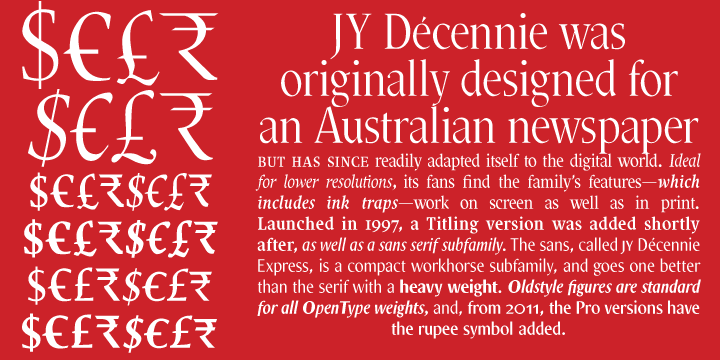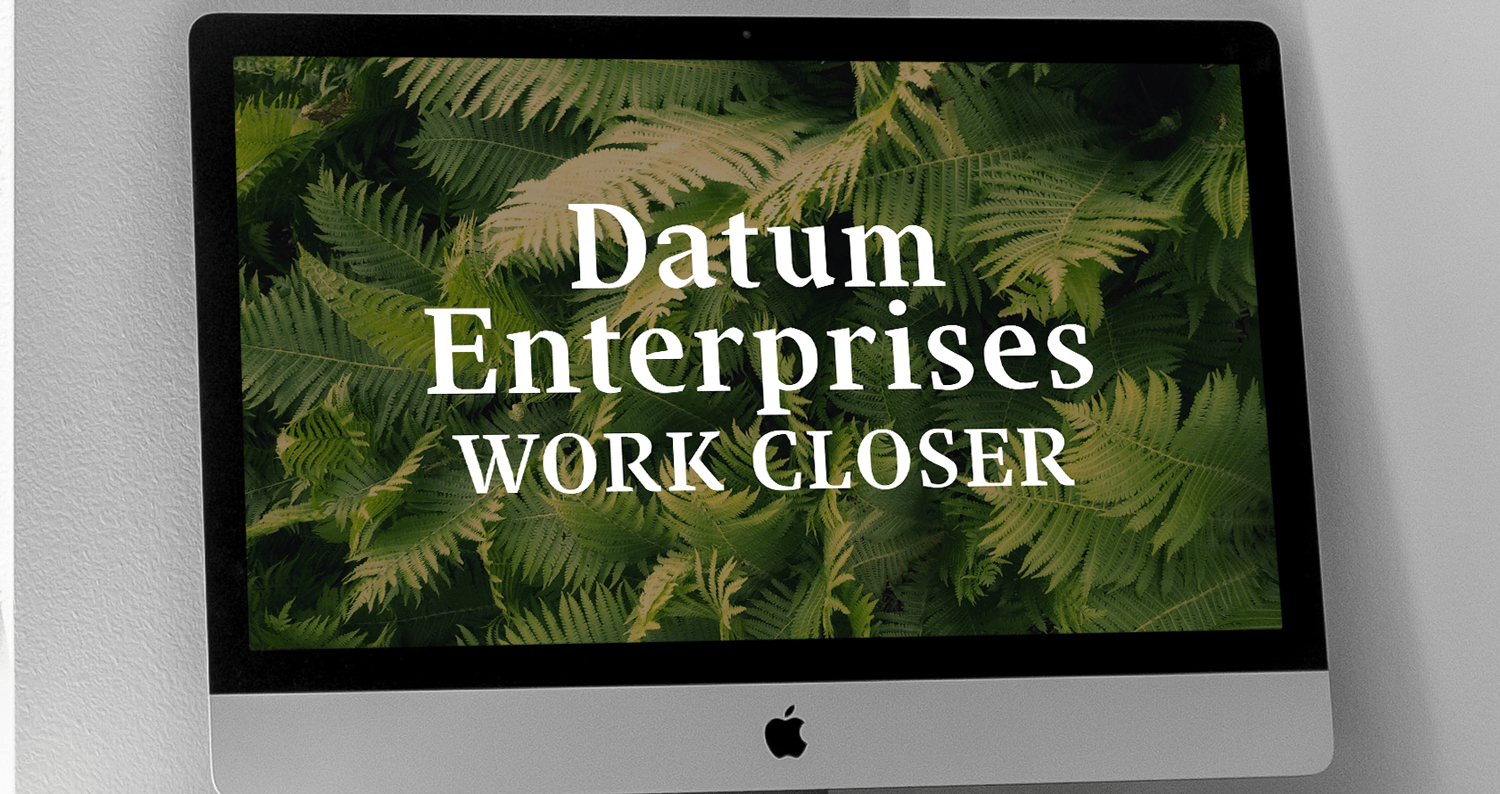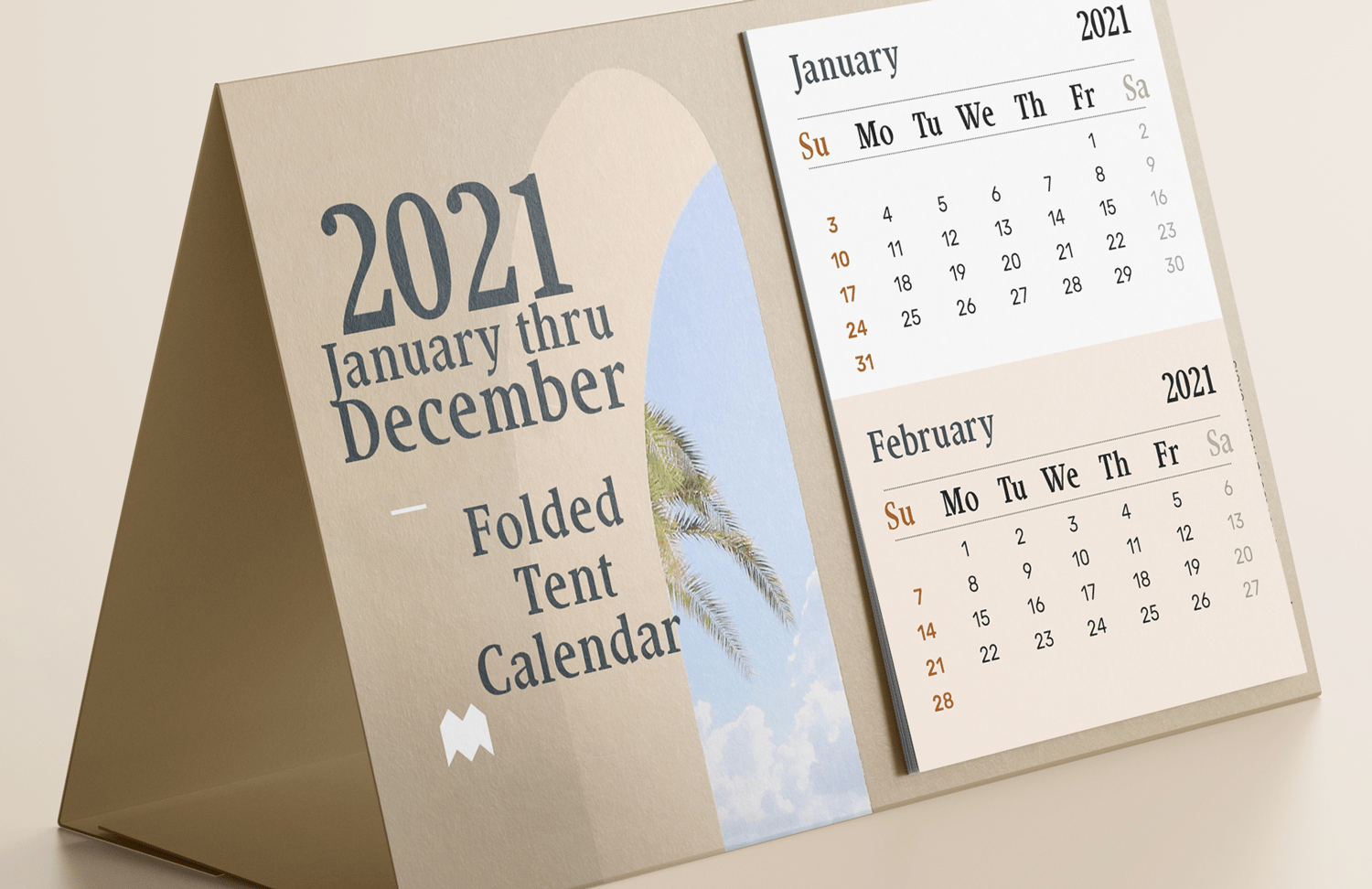
Decennie
Font Family by JY&A
Decennie is a refined serif family with a distinctly formal, fashion-aware presence. Its narrow proportions, sharp serifs, and high-contrast strokes give it a polished look that feels both classic and modern, while the italic styles introduce a graceful calligraphic influence.
With 6 styles included—from Titling Roman and Titling Roman Italic to regular, bold, and italic companions—this family offers a versatile palette for elegant display work. It suits branding, editorial layouts, luxury packaging, invitations, titling, and other projects that call for sophistication, clarity, and a strong visual voice.
Designed by JY&A, Decennie balances legibility with a slender, stylish structure, making it especially appealing wherever you want serif typography to feel poised, sharp, and confidently upscale.